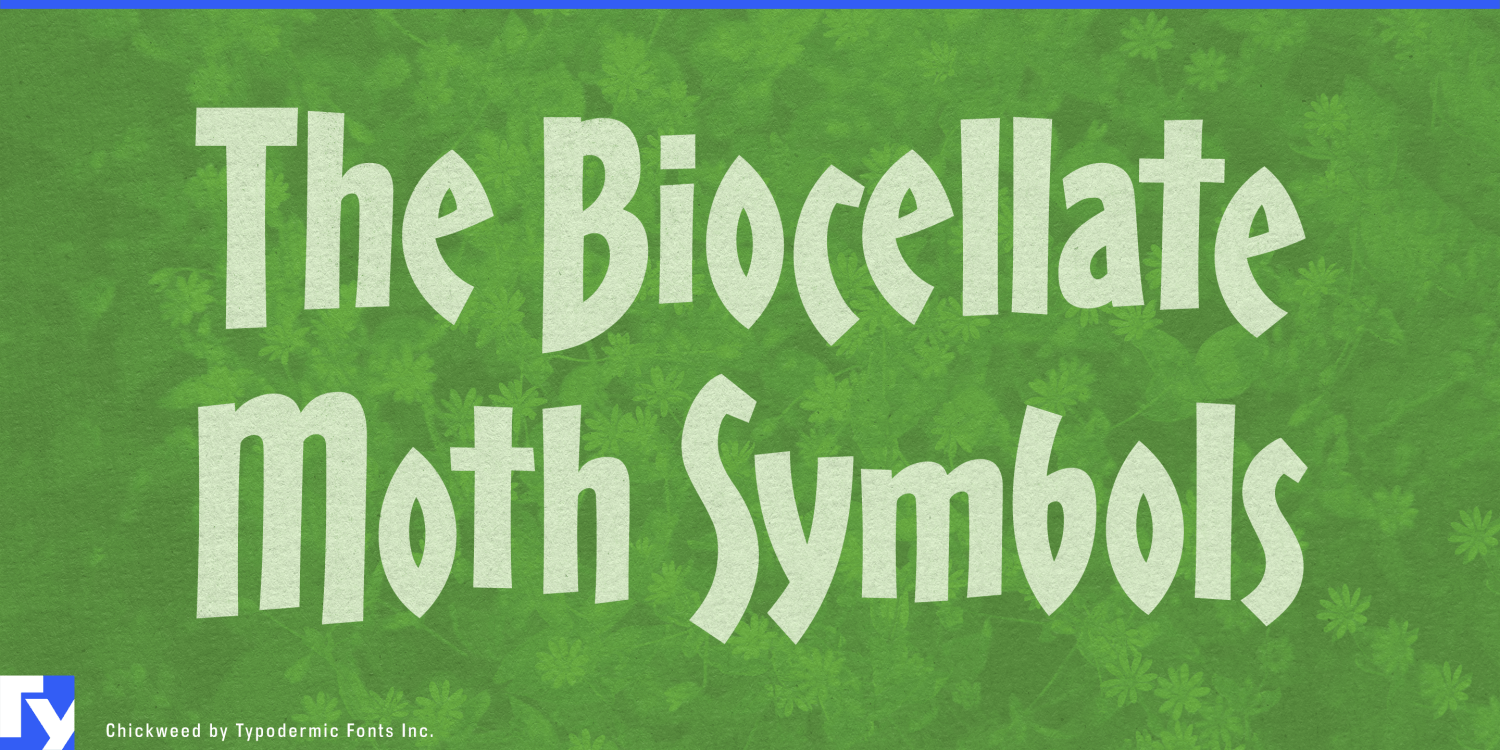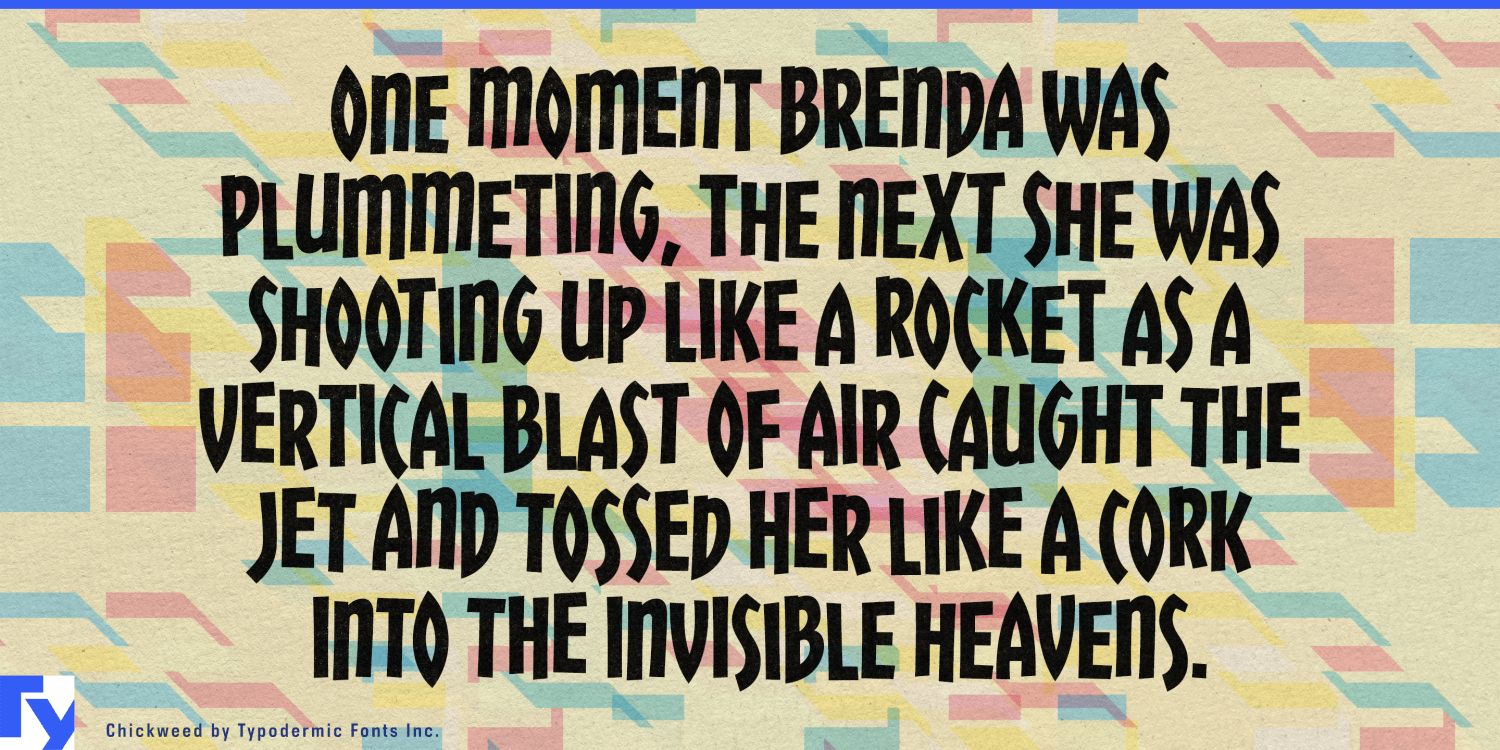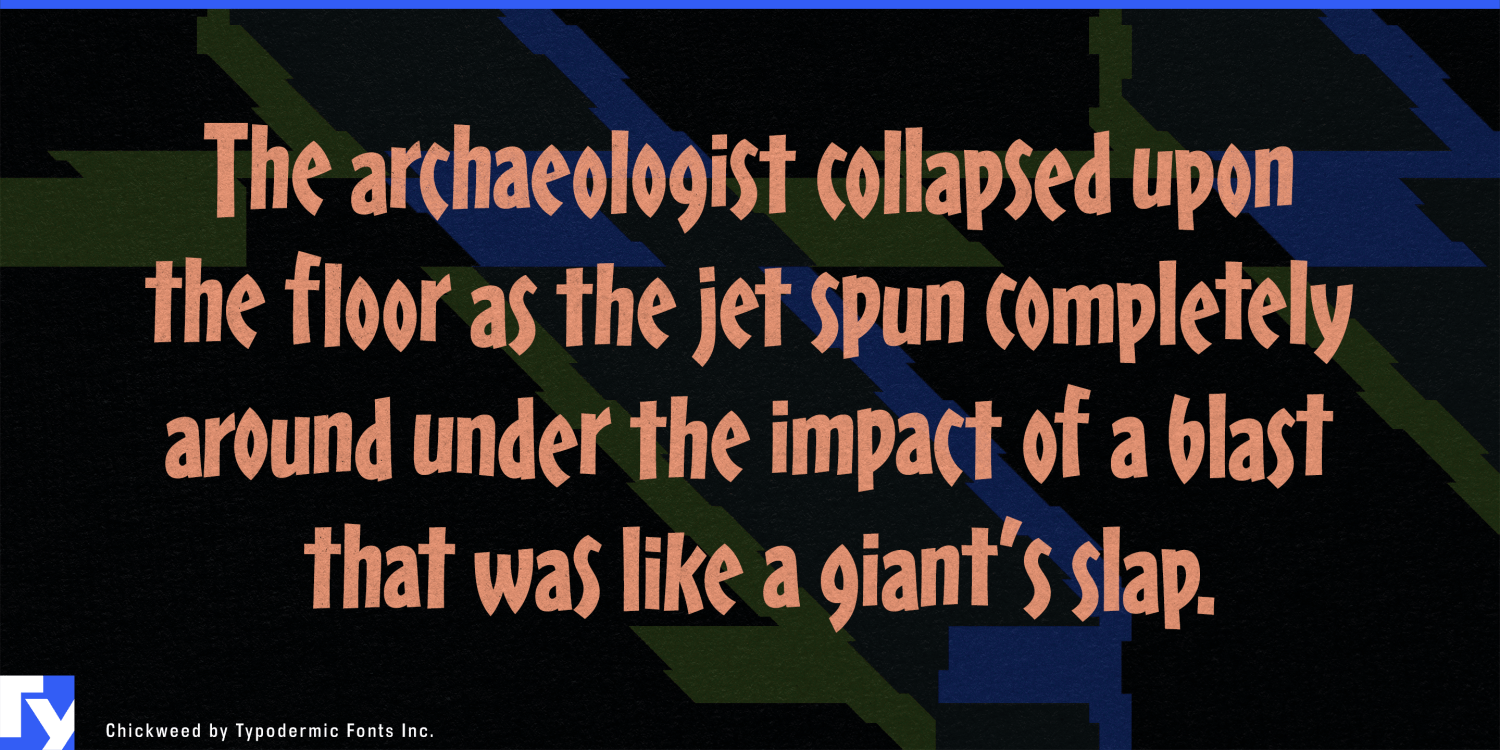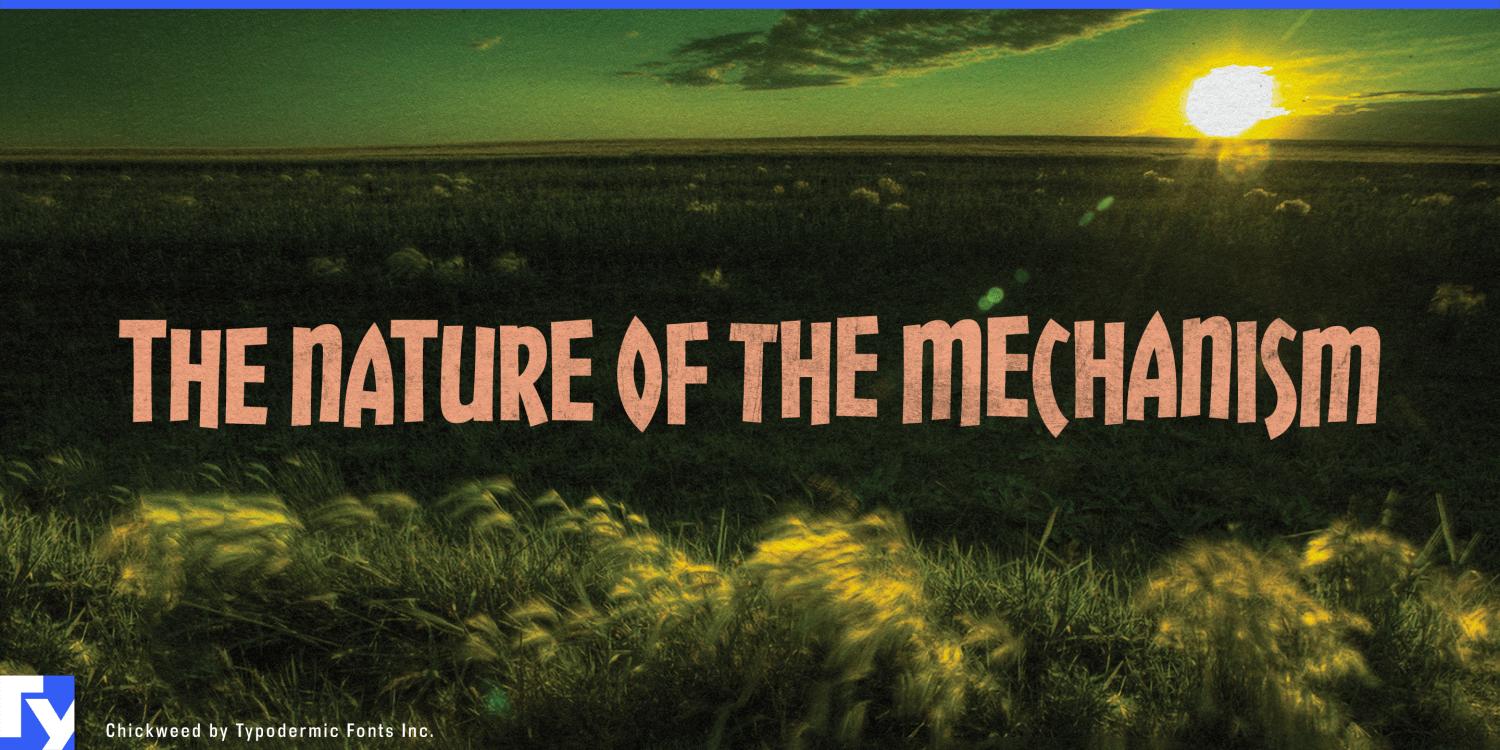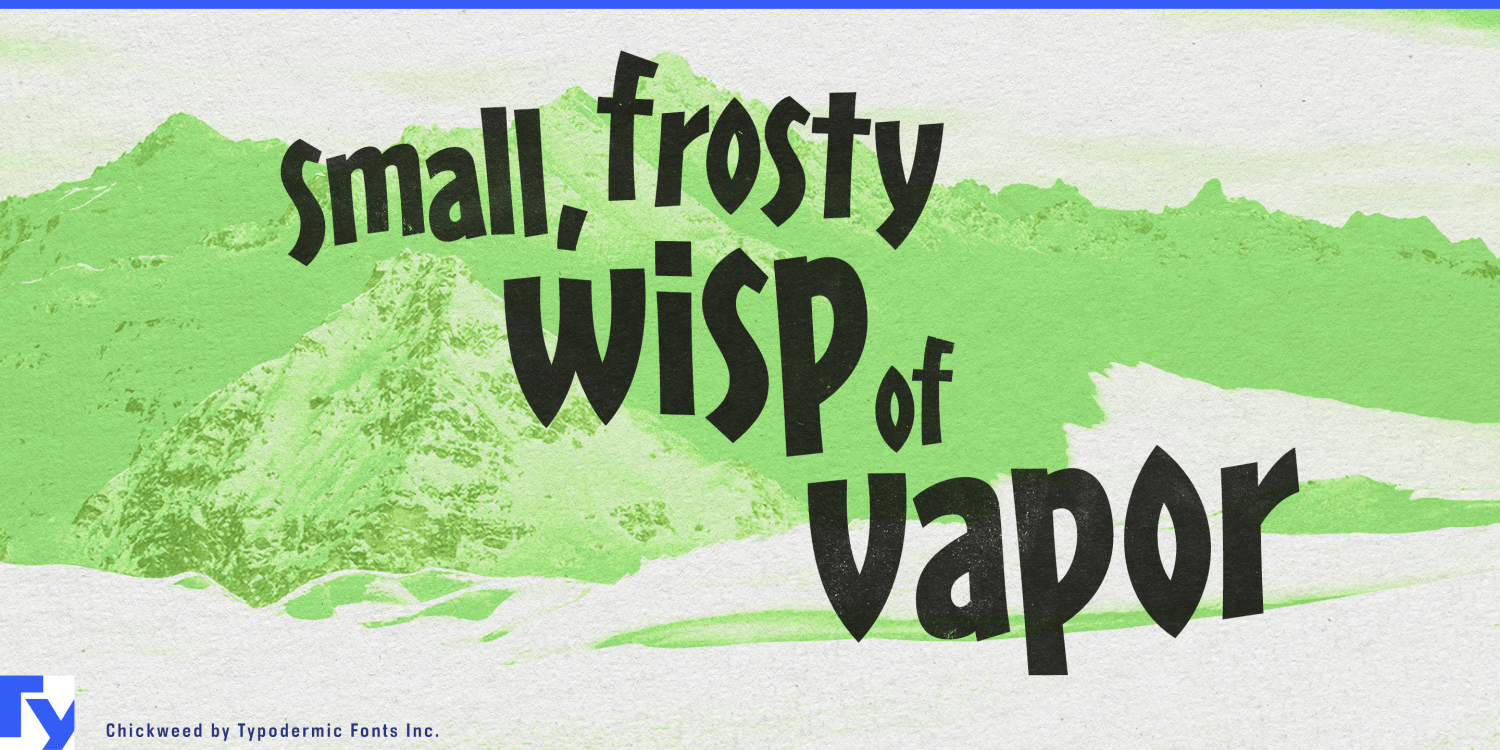
About Chickweed
Elevate your typography with Chickweed, a typeface that dances on the edge of convention and captivates with every curve. This dynamic font doesn’t just grab attention—it holds it, infusing your headlines and subheadings with an irresistible…